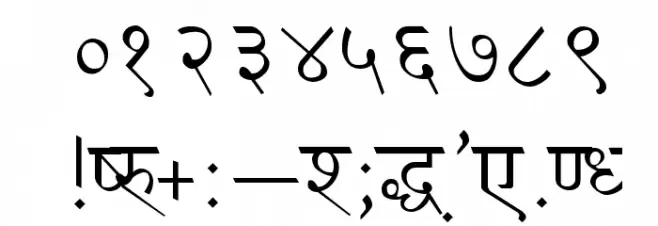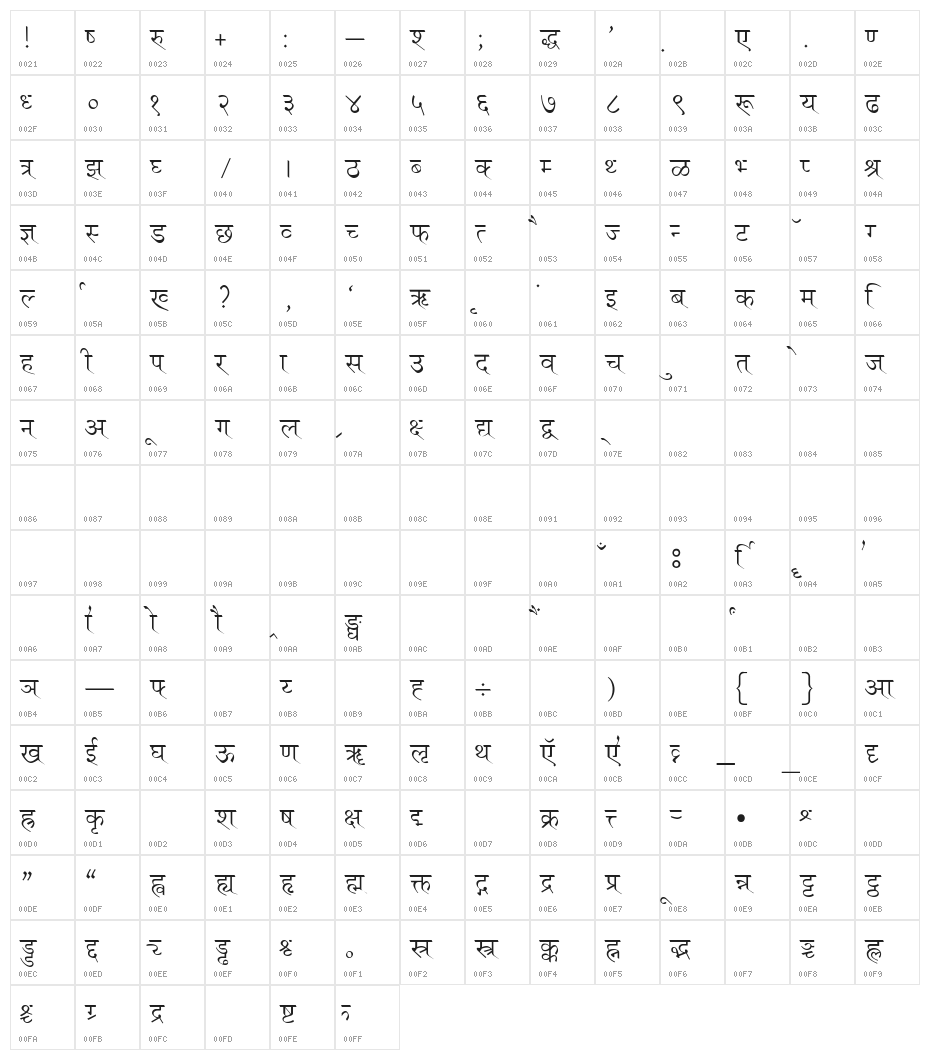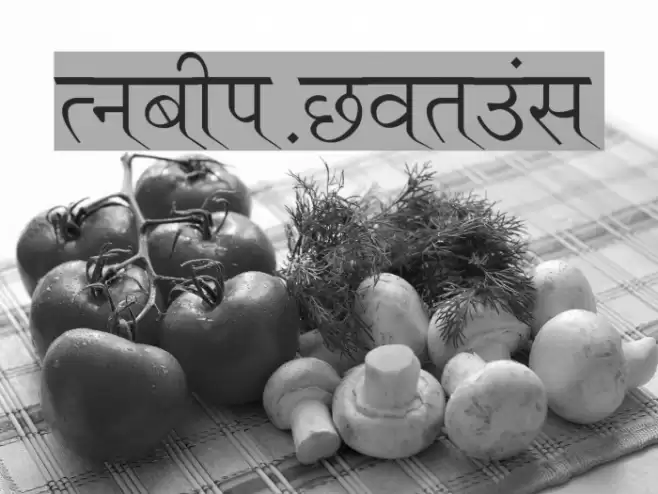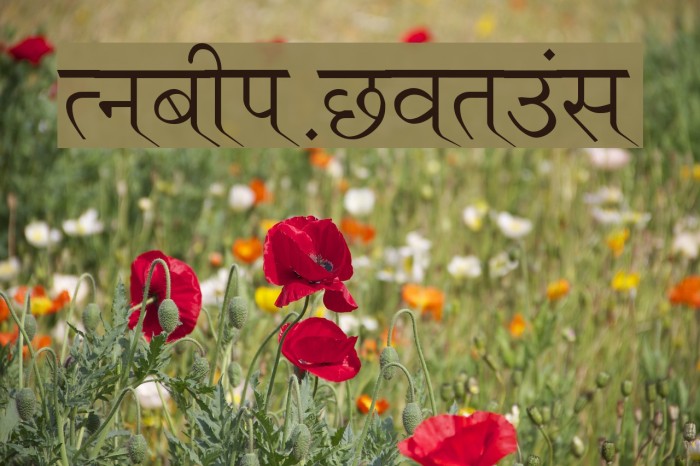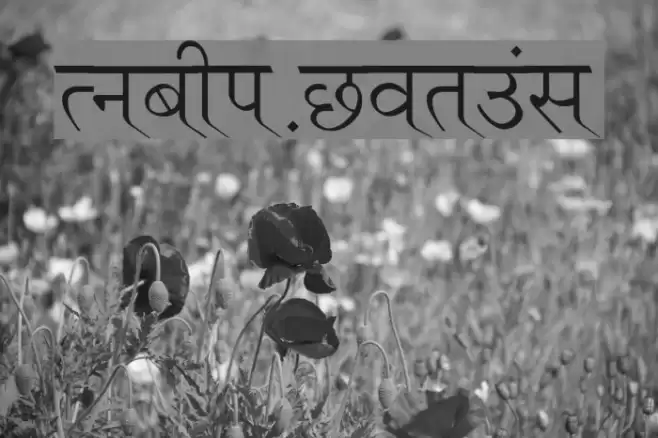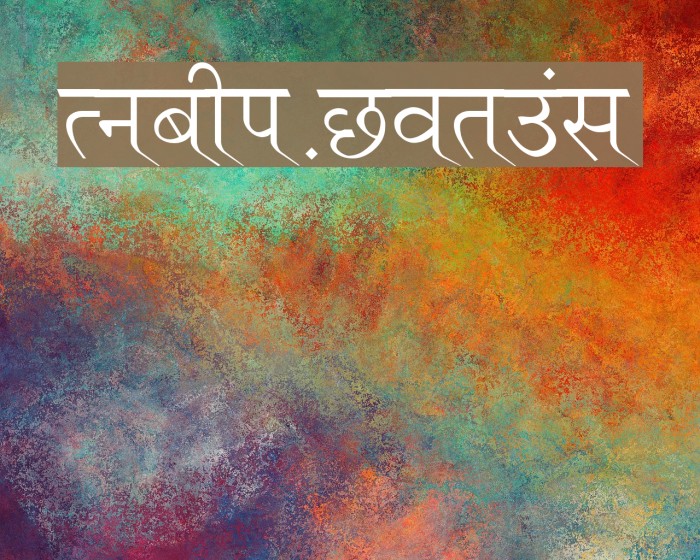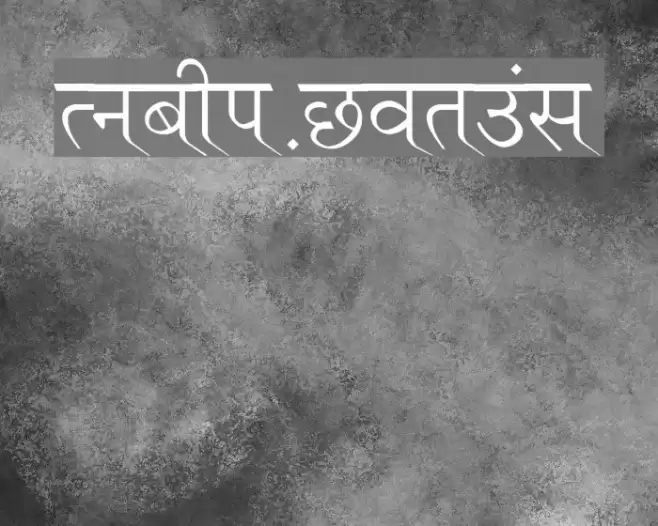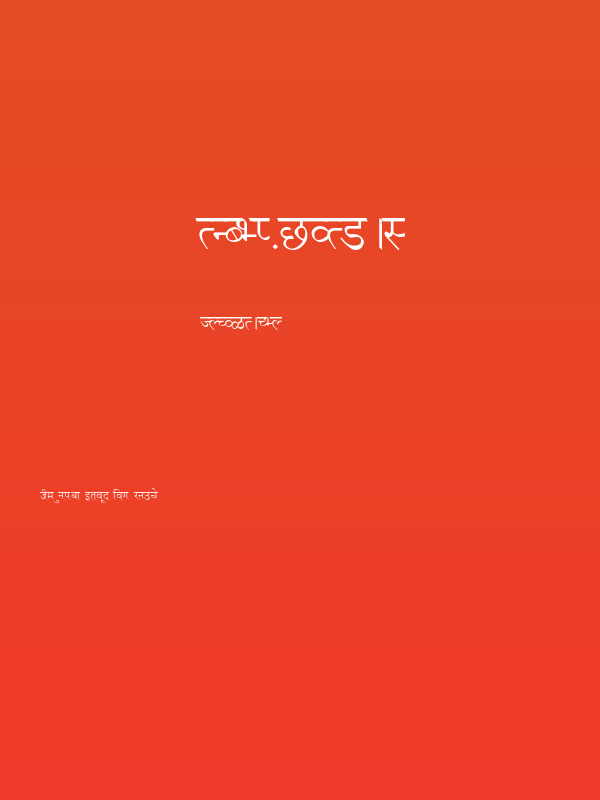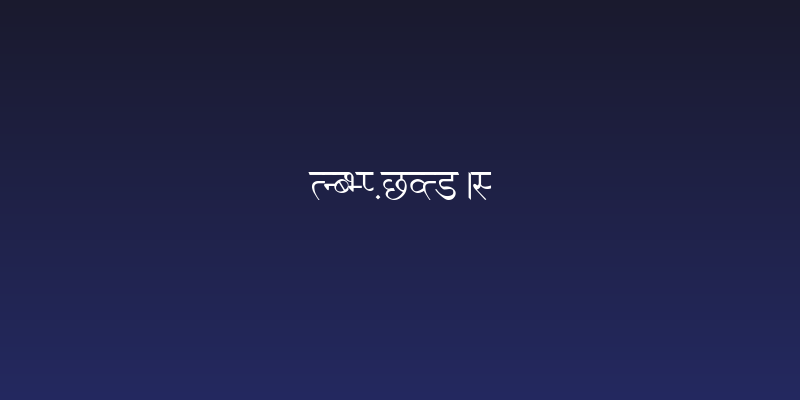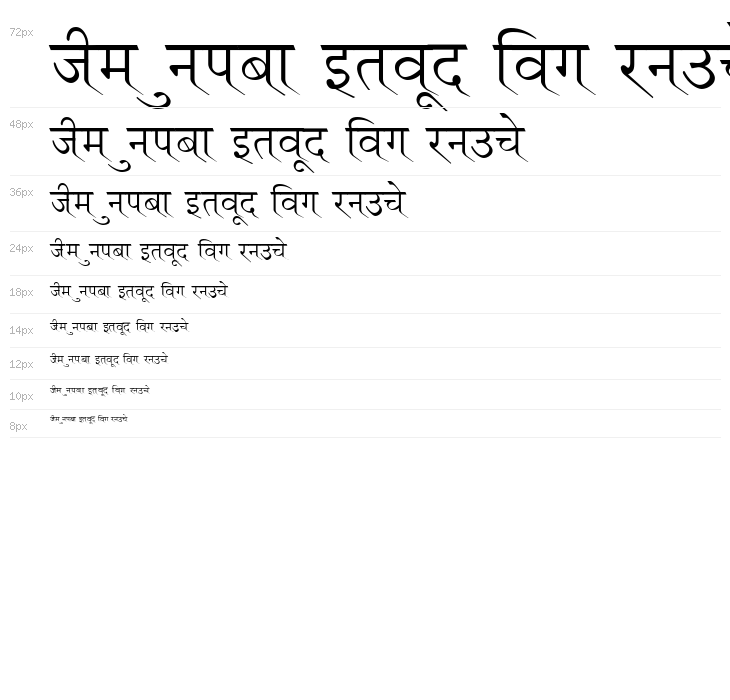
Ruchi-Normal Font
Ruchi-Normal Description
This font showcases a traditional Devanagari script with a modern twist. The characters are elegantly crafted with a balance of thick and thin strokes, providing a medium contrast that enhances readability while maintaining an artistic flair. The script flows smoothly with a slight slant, giving it a dynamic and lively appearance. The spacing between characters is normal, ensuring clarity and legibility. The numerals and special characters are designed to complement the overall style, maintaining consistency throughout the typeface. This font is ideal for projects that require a touch of cultural authenticity combined with contemporary design elements.
| Use Case | Headlines, Body text, Cultural projects |
| Proposed Projects | Ideal for cultural publications, educational materials, and artistic projects that require a traditional yet modern touch. |